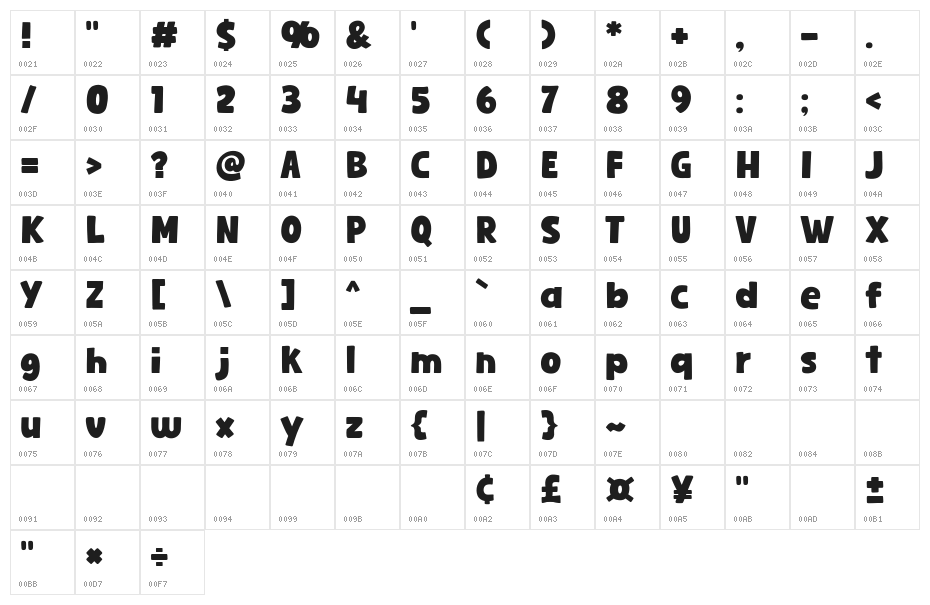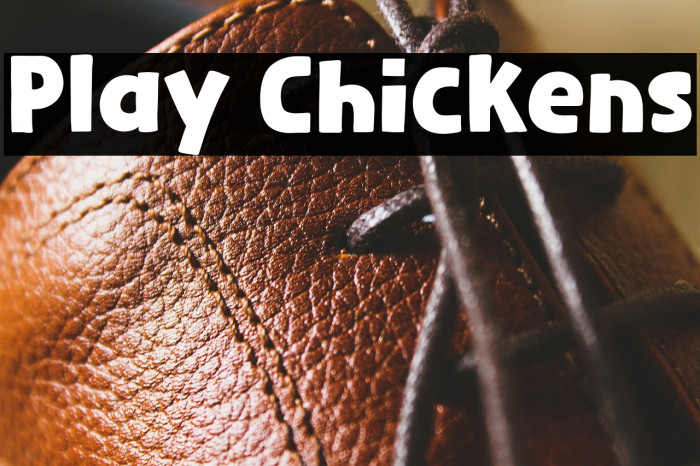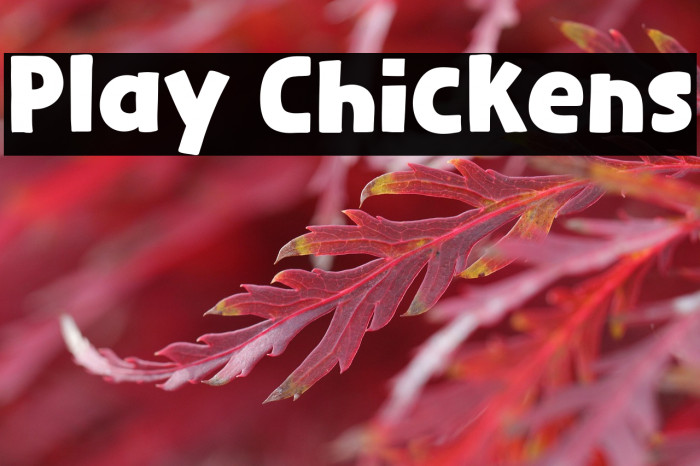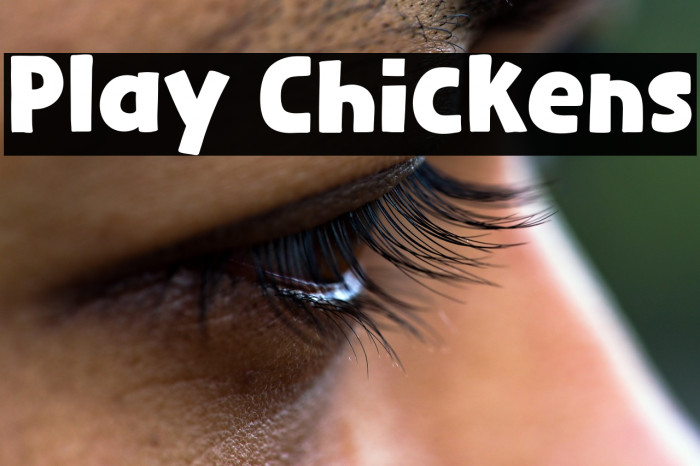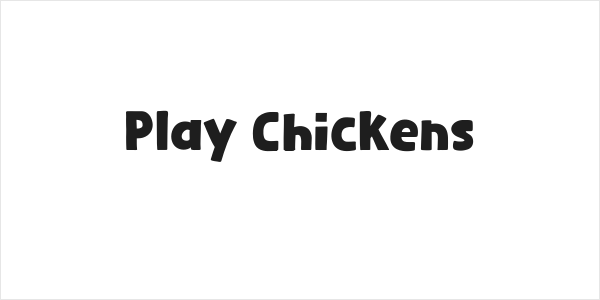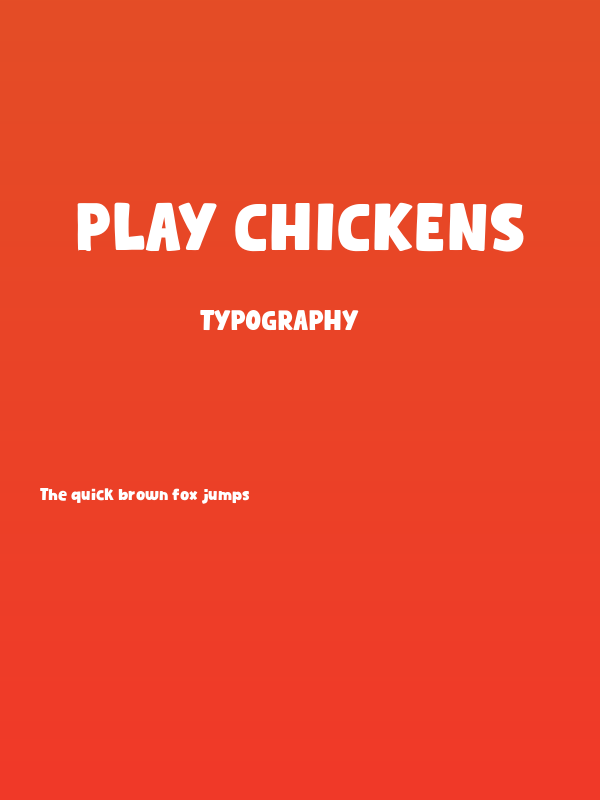
Play Chickens Font
Play Chickens Description
This playful and bold font features thick, rounded characters that exude a sense of fun and whimsy. The letters are slightly irregular, giving them a hand-drawn appearance that adds to their charm. The font is highly legible, with clear distinctions between each character, making it suitable for a variety of creative projects. Its boldness ensures that it stands out, while the rounded edges soften its overall look, making it approachable and friendly. The numbers and special characters maintain the same playful style, ensuring consistency across all text elements.
| Proposed Projects | Ideal for children's books, playful branding, posters, and social media graphics. |